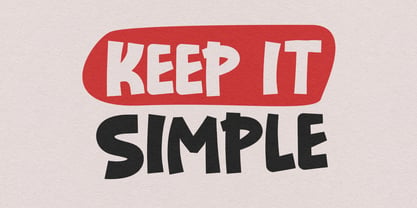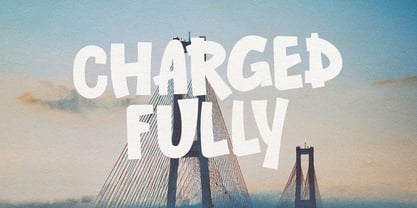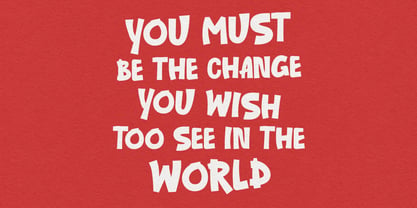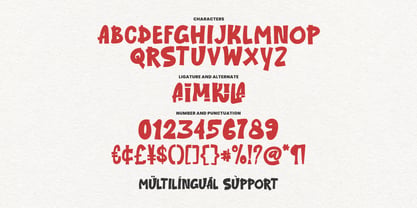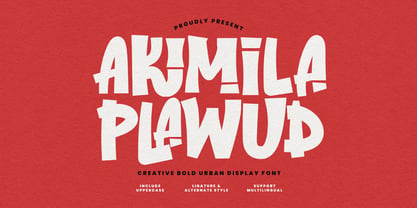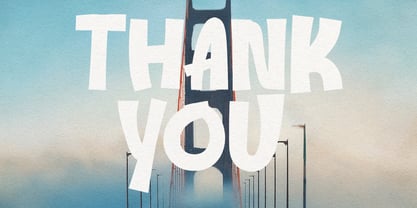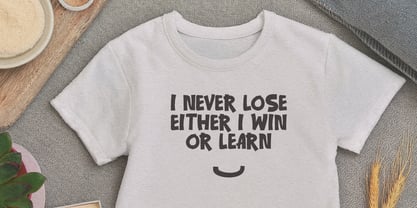
MC Akimila Plawud
by Maulana Creative
The MC Akimila Plawud Font Family was designed by Gilang Maulana and published by Maulana Creative. MC Akimila Plawud contains 1 styles. More about this family
Akimila Plawud is a creative bold display font featuring a heavy, hand-drawn aesthetic with irregular geometric shapes. Its thick strokes and playful letterforms create a high-impact visual presence, making it ideal for headlines, posters, and design. The font includes unique ligatures and alternate styles, offering versatile options for branding, social media graphics, and bold typographic compositions. Designed with a rebellious yet friendly energy, it provides multilingual support to ensure broad usability across various international design projects.
Designers: Gilang Maulana
Foundry: Maulana Creative